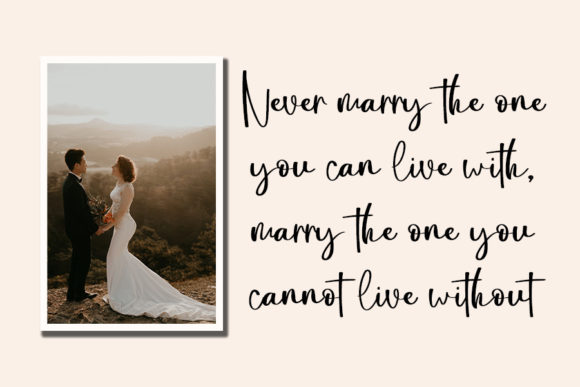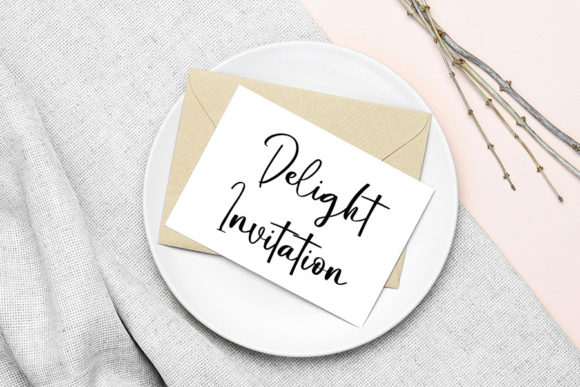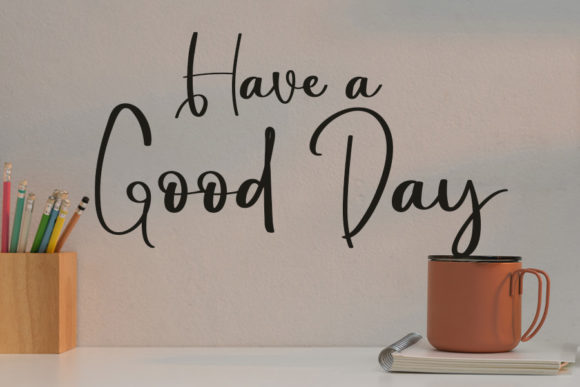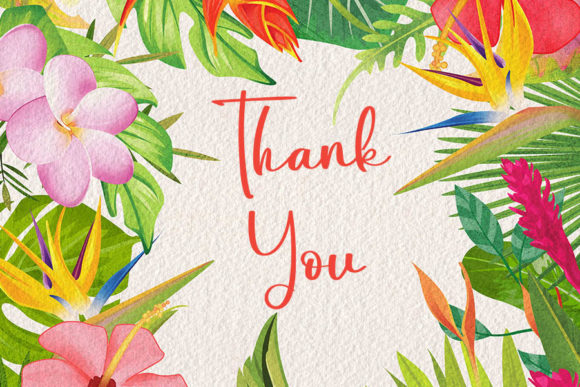
The Perfect Font for Your Special Moment
Do you remember the feeling of excitement and nervousness as you sat down to plan your wedding? The countless decisions, the endless details, and the anticipation of starting your new life together. For many of us, that moment is etched in our memories forever. But what if I told you that there’s a way to relive that magic in your design work?
Meet the Honeymoon Signature Font, a beautiful handwritten font that’s sure to bring a touch of elegance and sophistication to your projects. Designed to evoke the feeling of a handwritten love letter, this font is perfect for any designer looking to add a personal and romantic touch to their work. Whether you’re creating wedding invitations, love letters, or simply want to add some whimsy to your design, the Honeymoon Signature Font is the perfect choice.
As a designer, you know how hard it can be to find the perfect font to match your vision. But with the Honeymoon Signature Font, you can rest assured that you’ve found a true gem. Its classy calligraphic influences and contemporary feel make it a valuable addition to any designer’s toolkit.
Honeymoon Signature Font Key Features
- Unique Characteristics: The Honeymoon Signature Font features elegant, cursive script lines with a touch of whimsy, making it perfect for wedding invitations, stationery, and other romantic designs.
Honeymoon Signature Font Review
Honeymoon Signature Font is a beautifully crafted script font that exudes elegance and sophistication. The font is perfect for designers looking to add a touch of romance and whimsy to their projects ✨. The flowing lines and delicate flourishes make it ideal for wedding invitations, love letters, and other sentimental designs.
The font is well-suited for both digital and print media, with clear and readable characters at various font sizes. The ligatures and swashes add an extra layer of personality to the font, making it stand out from more generic script fonts ✨.
- Beautifully crafted script font with flowing lines and delicate flourishes ✨
- Well-suited for both digital and print media
- Clear and readable characters at various font sizes
- Ligatures and swashes add personality to the font
- ⚠️ Limited character set, may not be suitable for extended text
- ⚠️ May not be suitable for bold or condensed font sizes
Overall, Honeymoon Signature Font is a lovely addition to any designer’s toolkit. While it may have some limitations, its beauty and elegance make it a great choice for specific projects. With careful consideration of its limitations, this font can add a touch of magic to any design.
For the most dramatic effect, use the Honeymoon Signature Font in a bold, cursive style. Common use cases include:
– Honeymoon announcements and brochures
– Personalized gift tags and labels